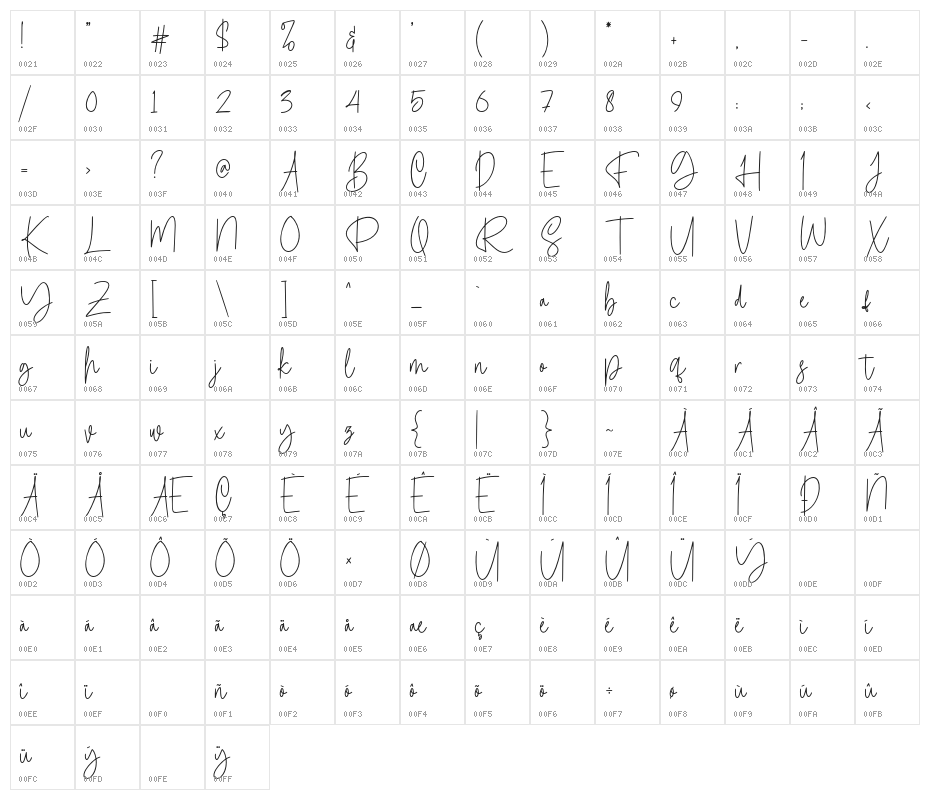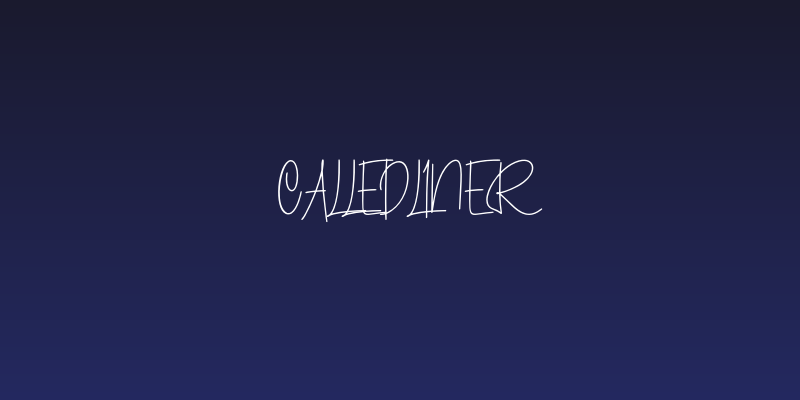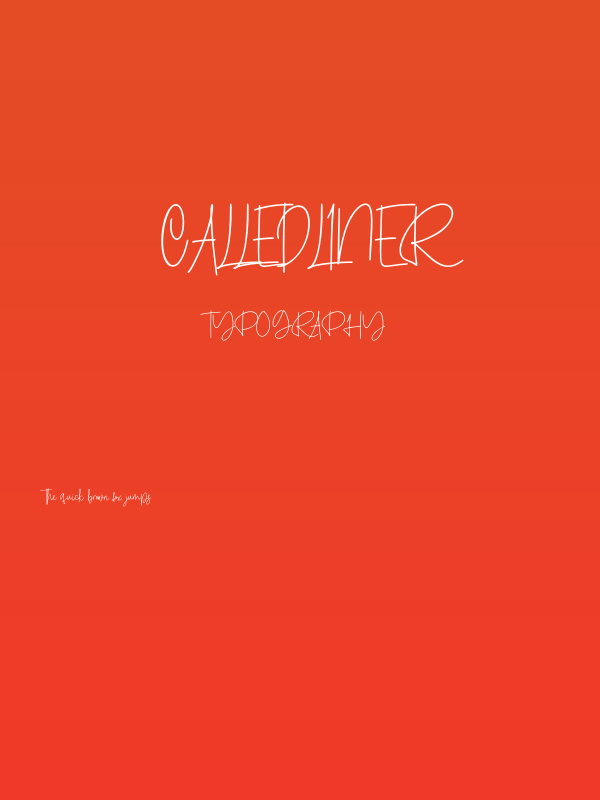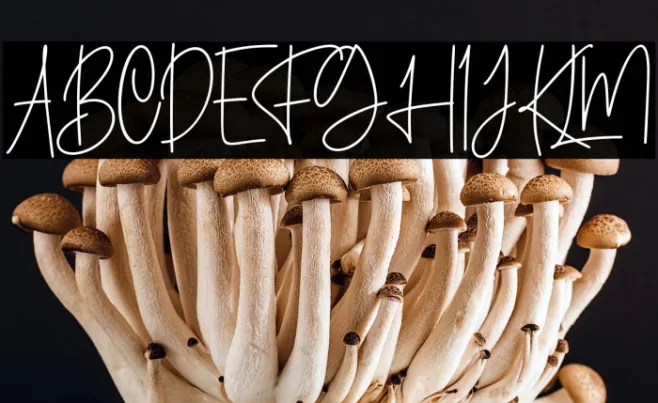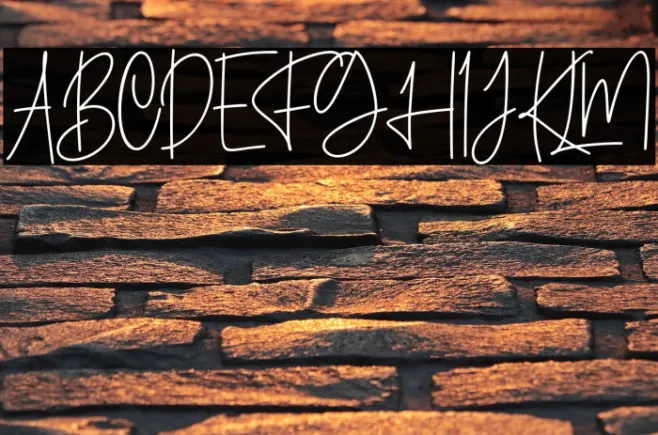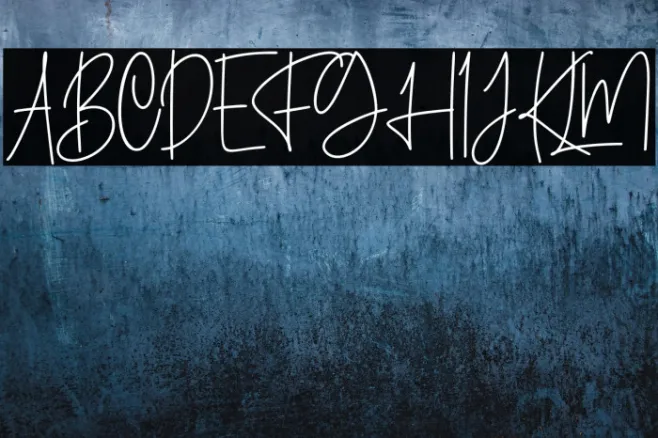
Calledliner Font
Calledliner Description
This font features a playful and whimsical handwritten style, characterized by its flowing and interconnected letterforms. The uppercase letters exhibit a unique blend of angular and curved strokes, creating a dynamic and lively appearance. The lowercase letters maintain a consistent fluidity, enhancing the font's overall casual and approachable feel. Numbers and special characters are crafted with the same attention to detail, ensuring uniformity across all glyphs. The font's thin strokes and slight variations in line thickness add to its charm, making it suitable for creative and informal applications.
| Use Case | Logos, Invitations, Social media graphics |
| Proposed Projects | Ideal for greeting cards, invitations, personal branding, and creative social media graphics. |